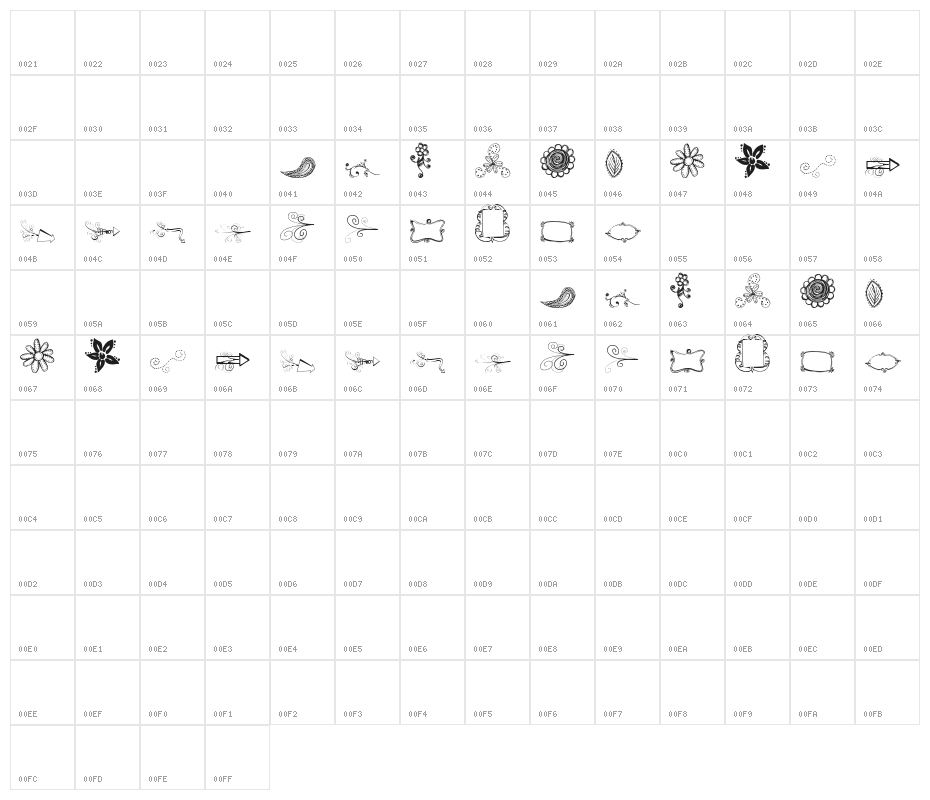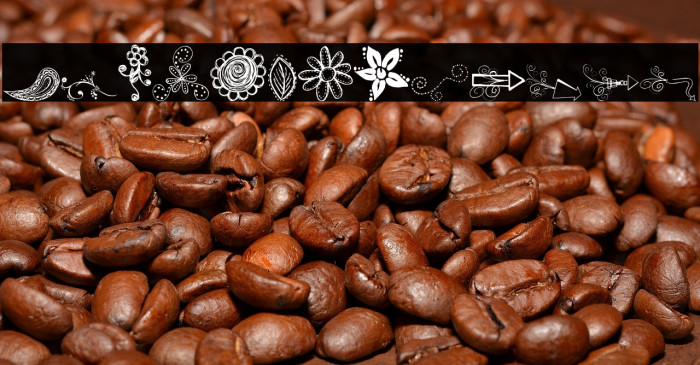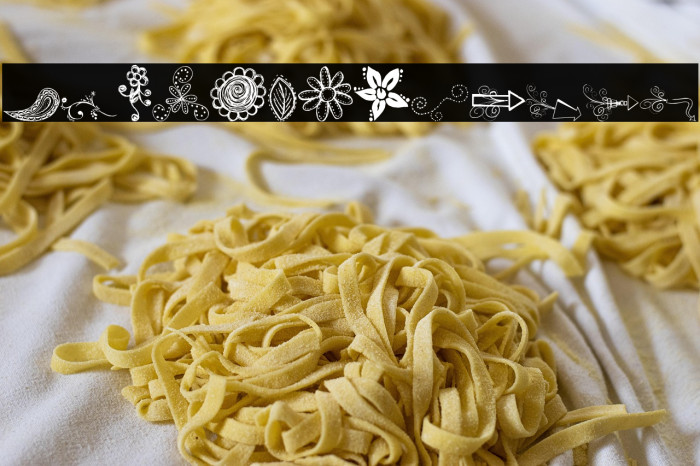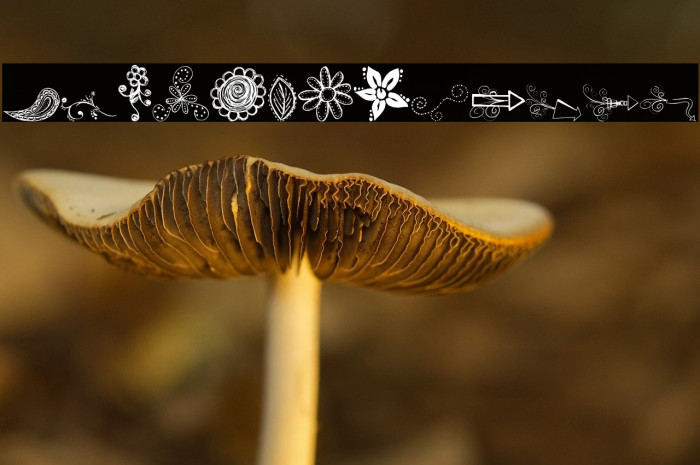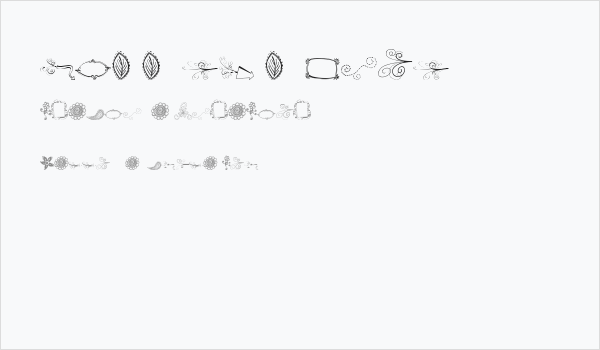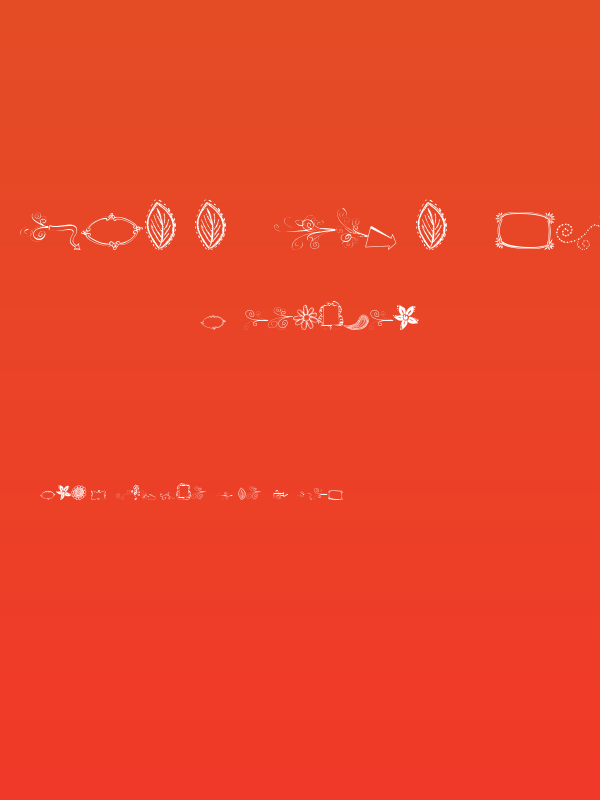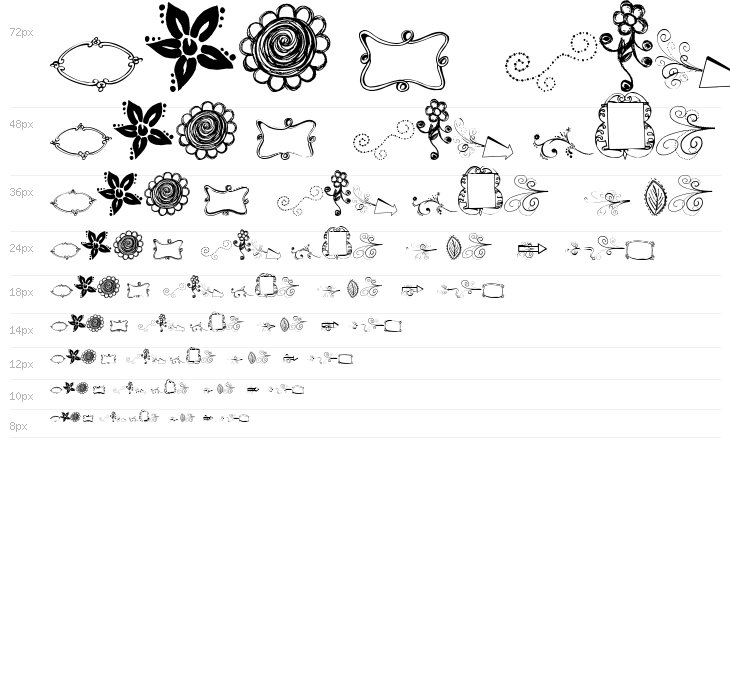
MTF Funk Fusion Font
MTF Funk Fusion Description
A decorative dingbat set featuring whimsical hand-drawn floral motifs, ornate frames, arrows, and swirls, with intricate line work and playful, organic shapes.
| Overall Style | Decorative, Whimsical, Hand-drawn |
| Use Case | Borders, embellishments, decorative accents |
| Proposed Projects | Invitations, scrapbooking, greeting cards, decorative borders, craft projects, digital art embellishments. |